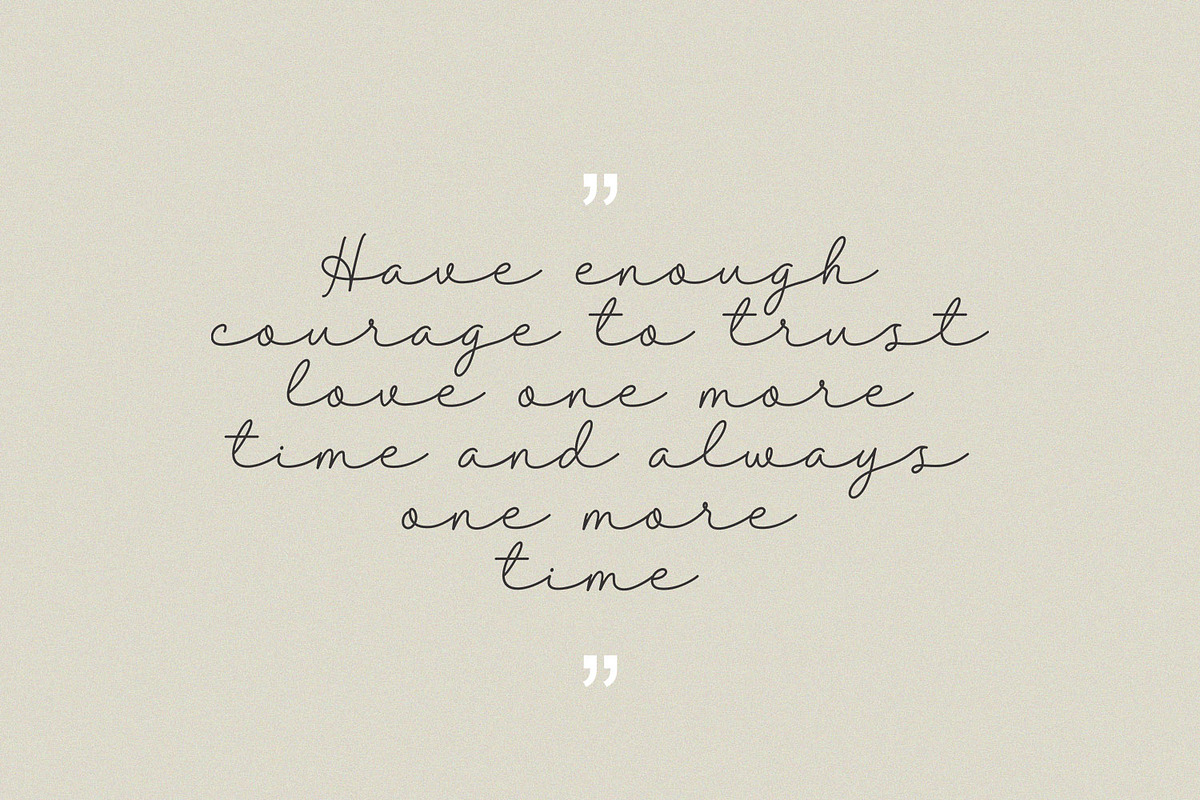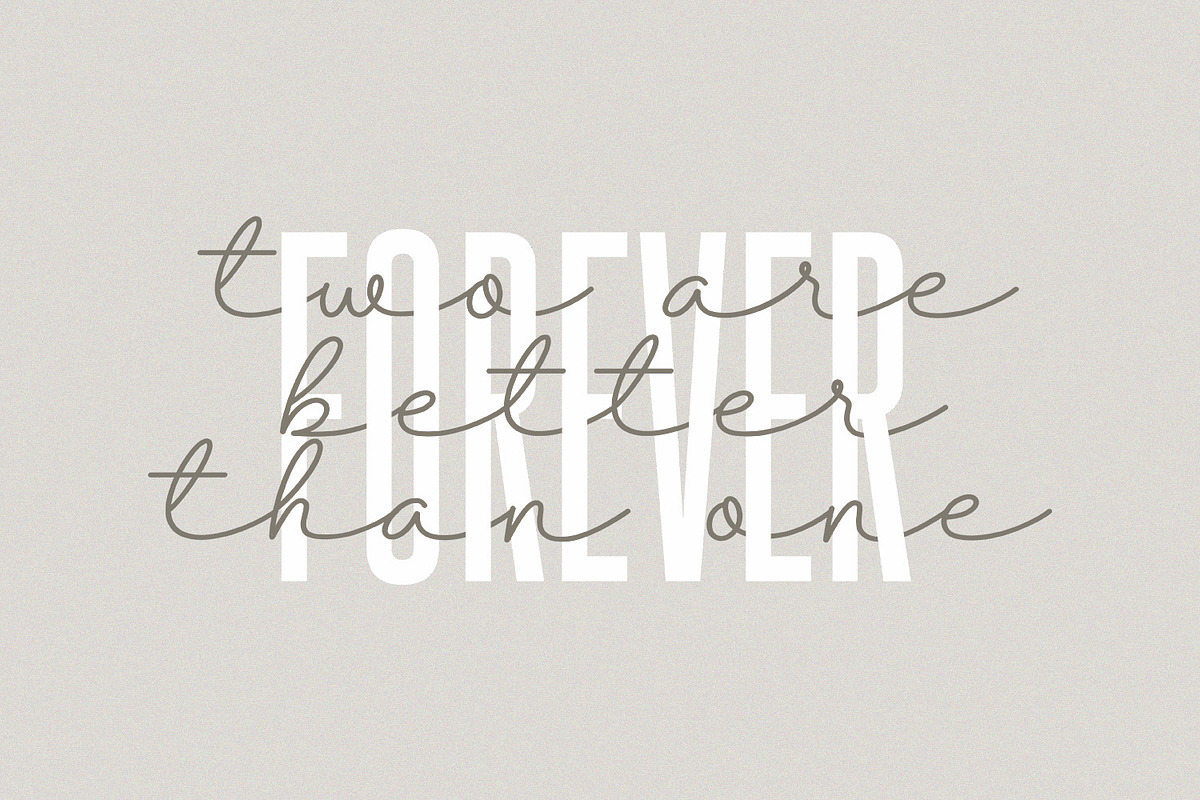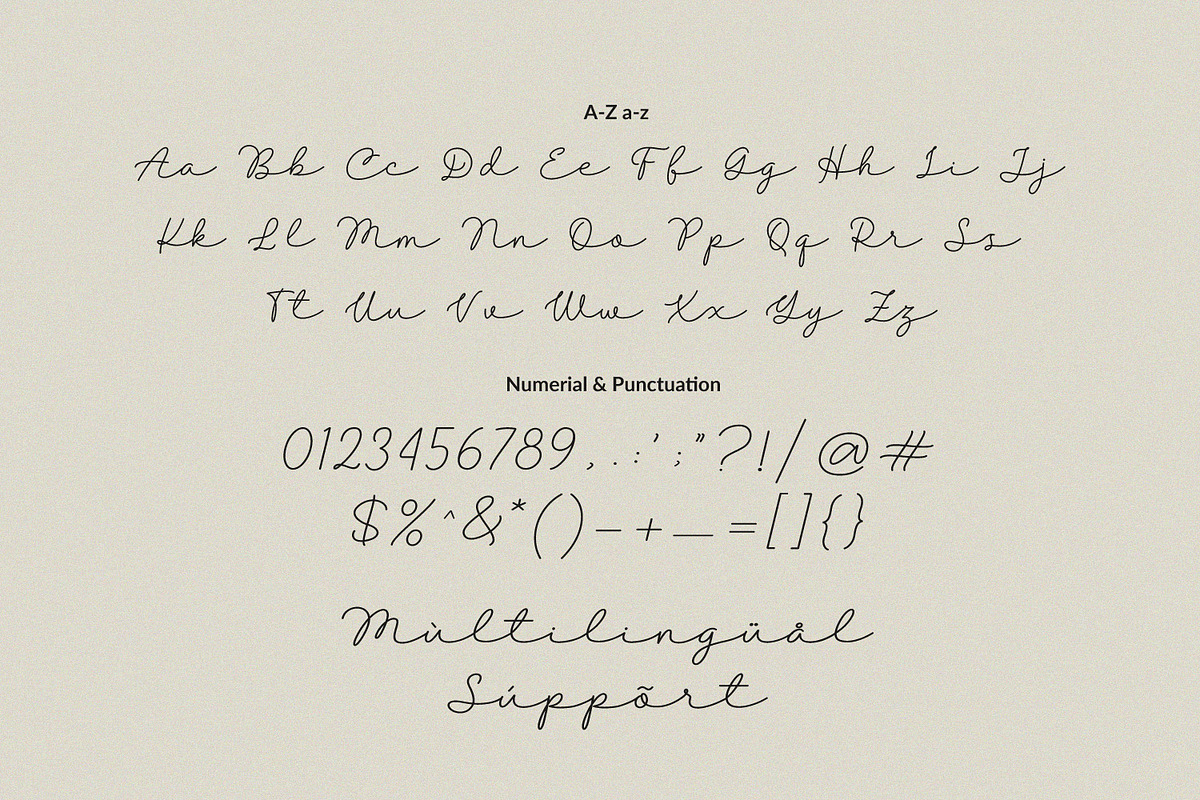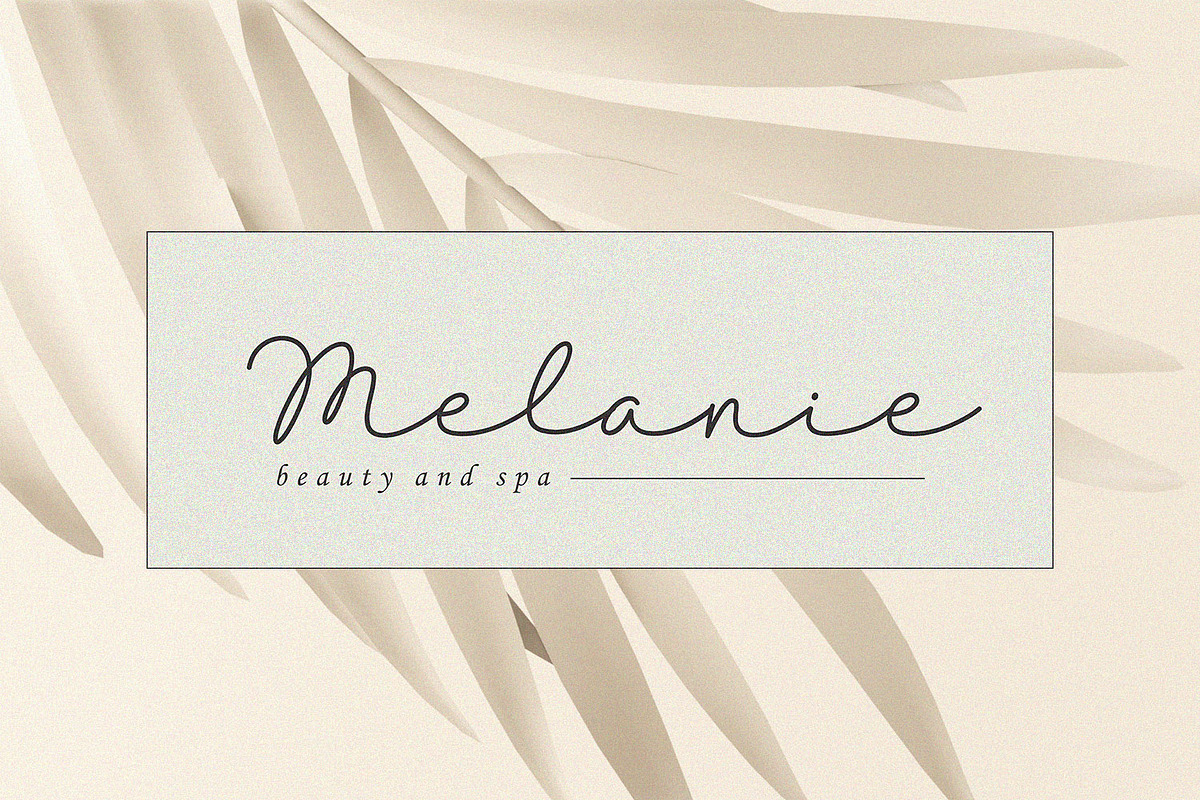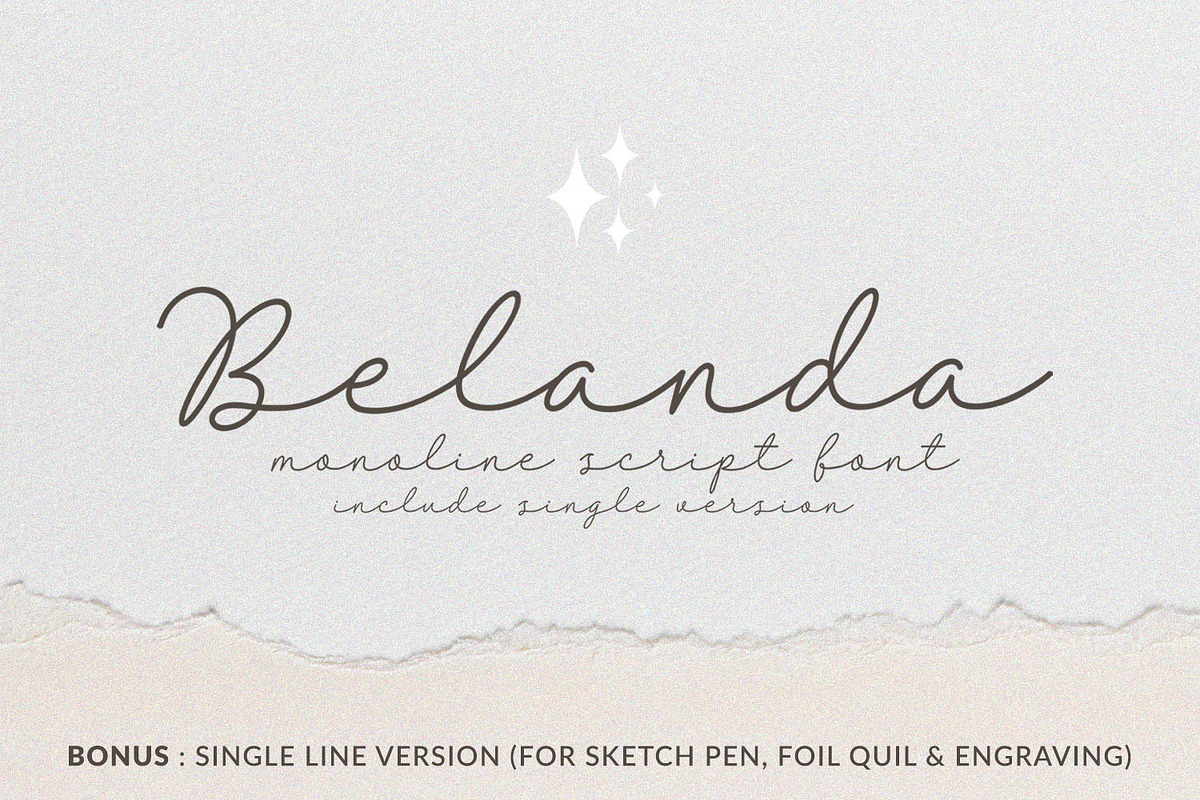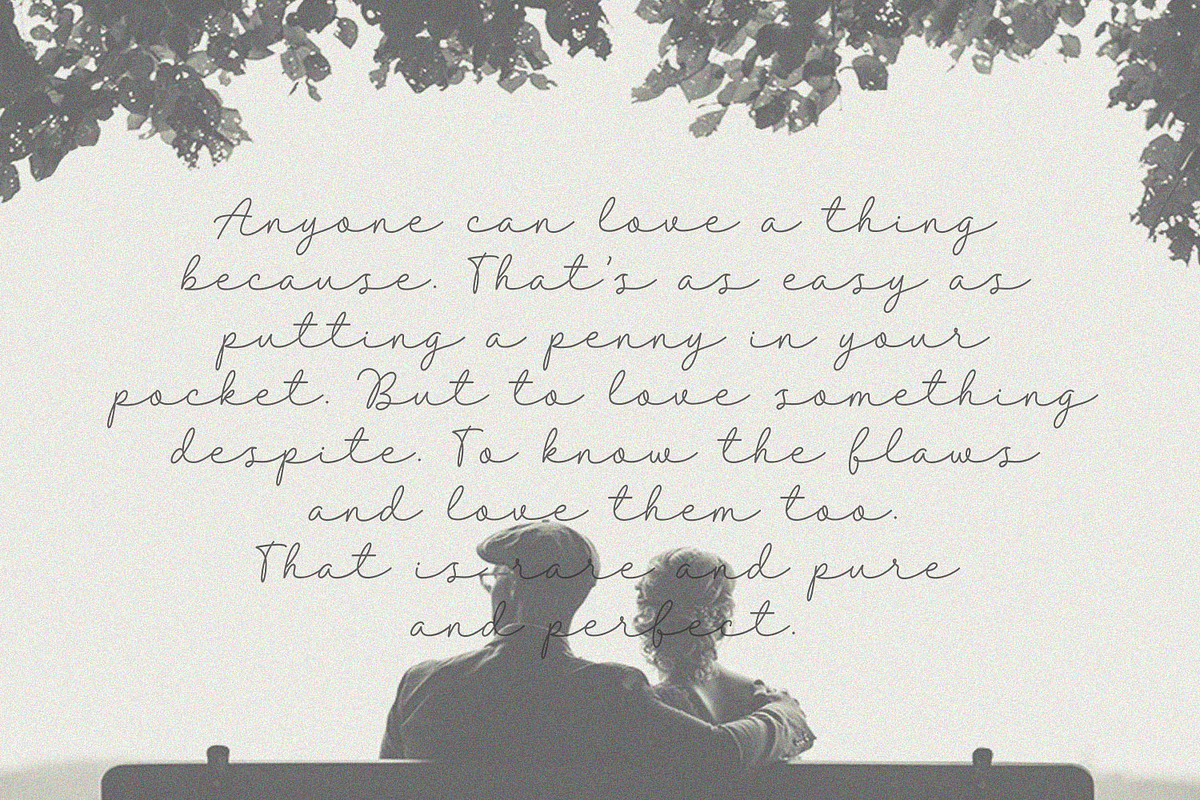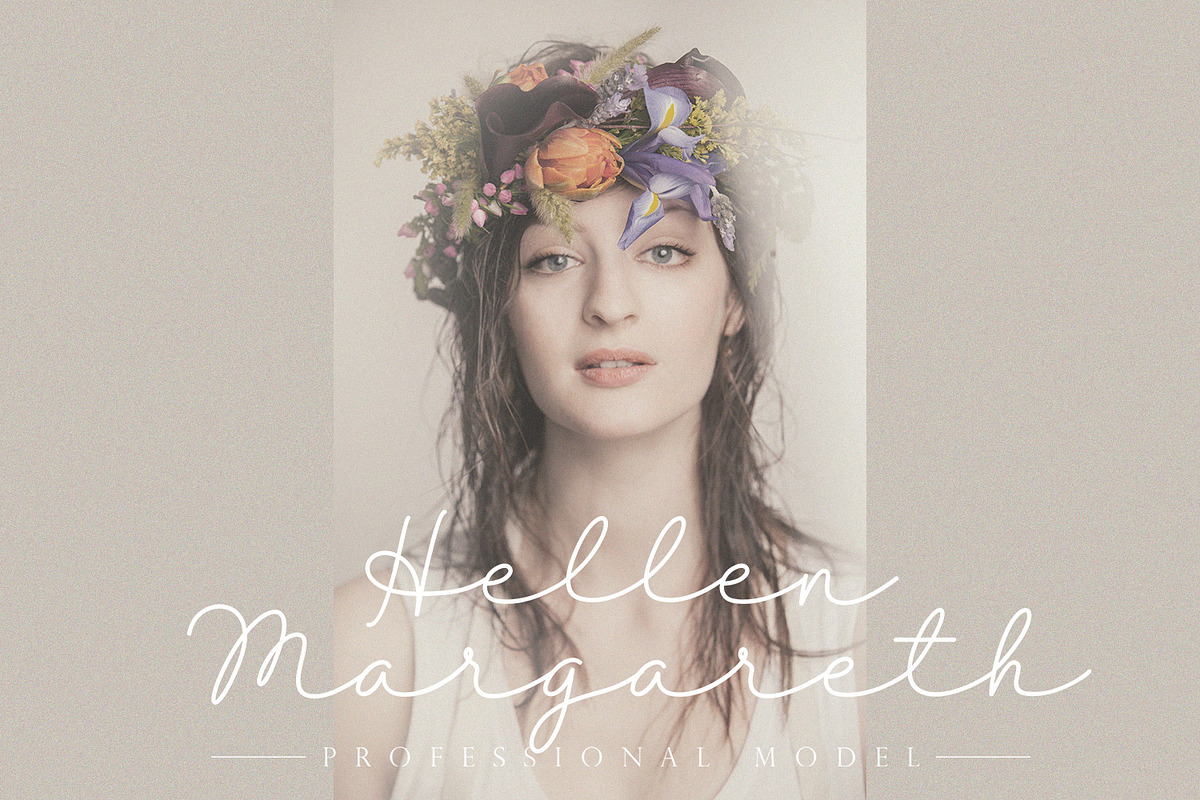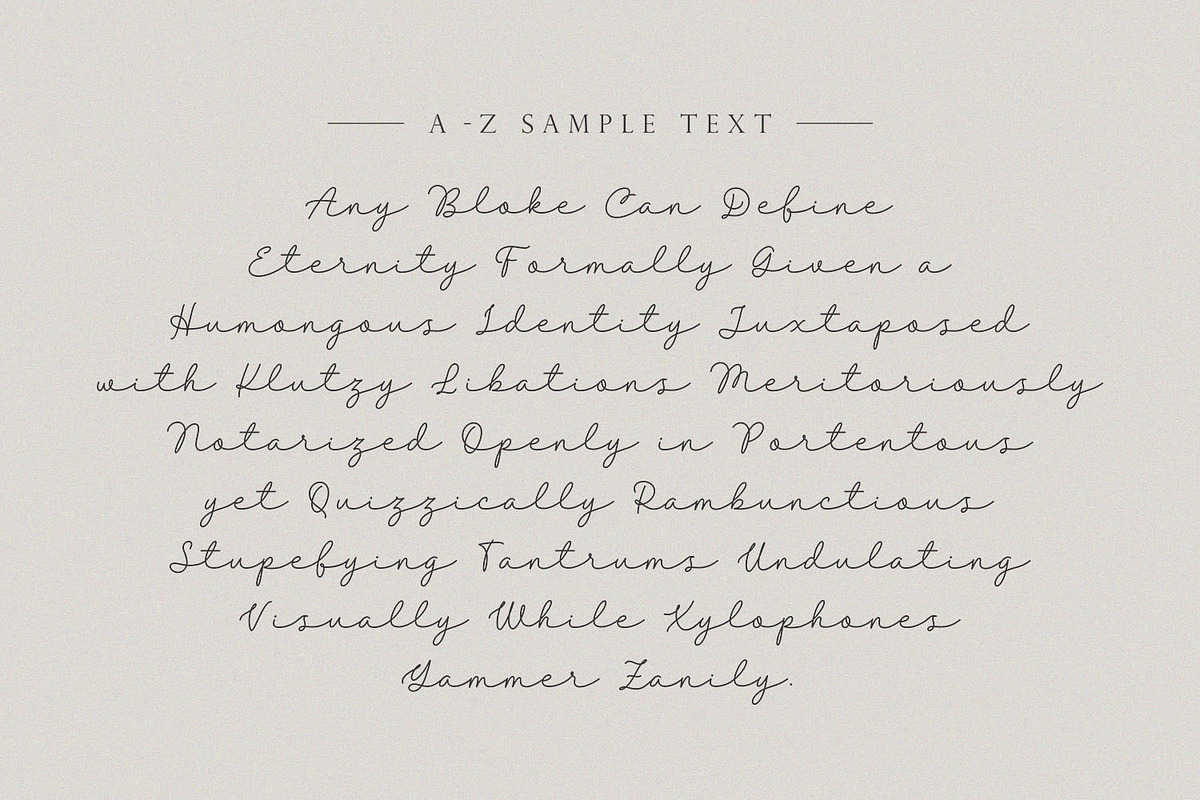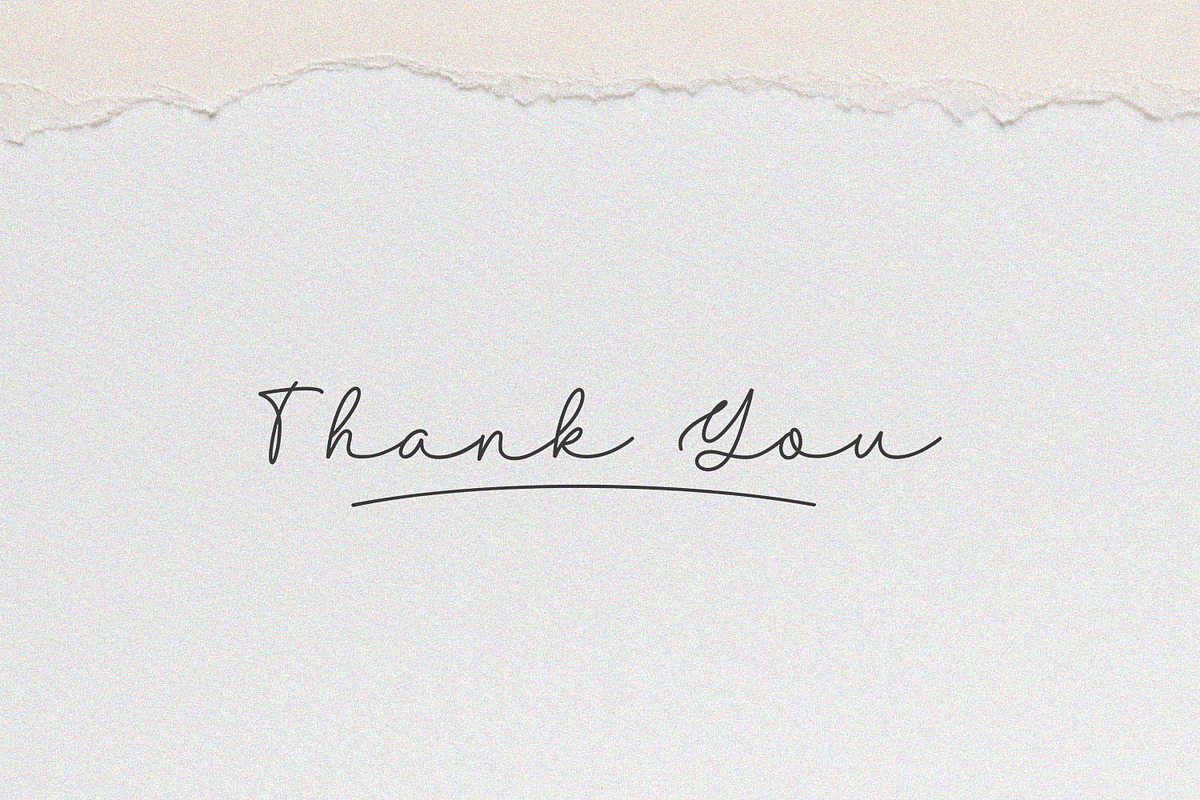
Belanda - Monoline & Singleline font
Introducing the new "Belanda" font, a monoline script font. For those of you who are needing a touch of clean monoline handwritten Font, chic and modernity for your designs, this font was created for you!